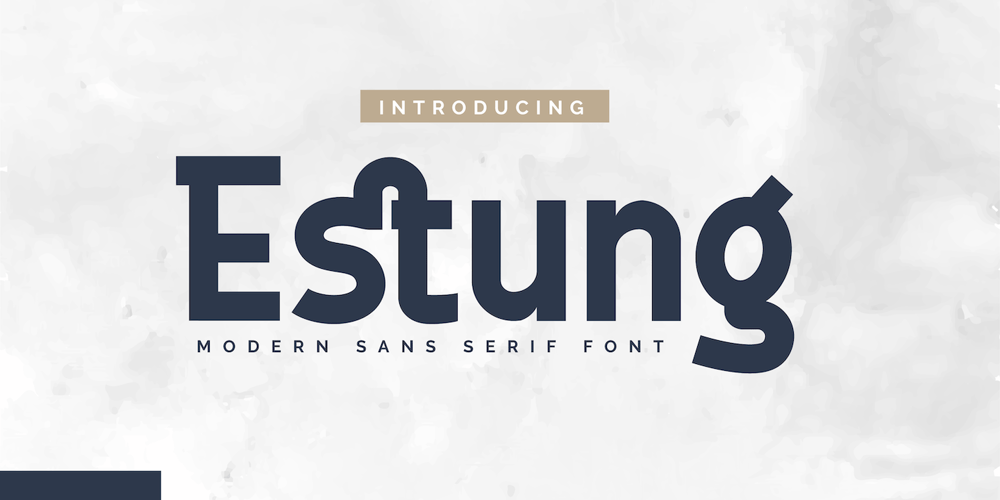
Estung
Estung font
Estung Font Family was designed by Rozikan and published by Twinletter. Estung contains 3 styles and family package options. A beautiful geometric font for writing titles and sentences that are comfortable to see while reading, unique, simple, and elegant, making this font suitable for you to use in various needs of your design projects. flexible in its use, there are 3 options according to your needsThis font is very suitable as text with displays for various kinds of branding, advertisements, posters, banners, packaging, news headlines, magazines, websites, logo design, banners, social media design and of course you can use a lot more.